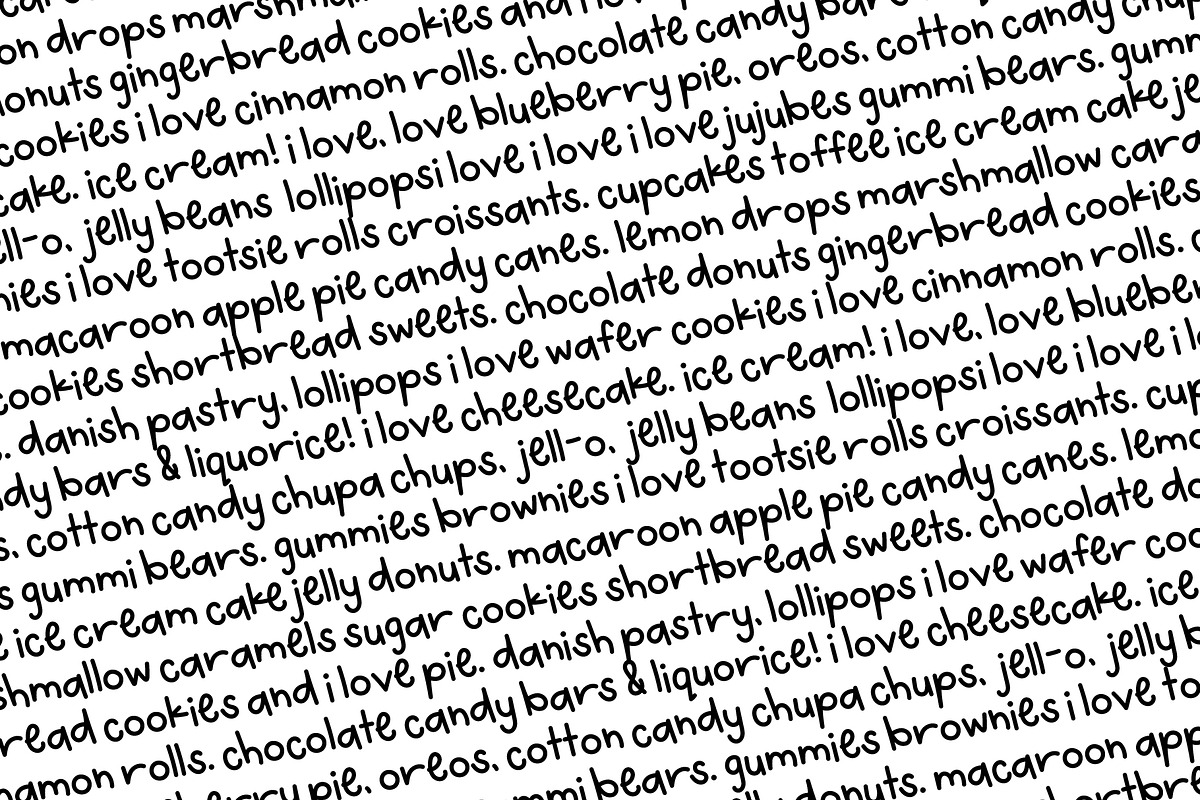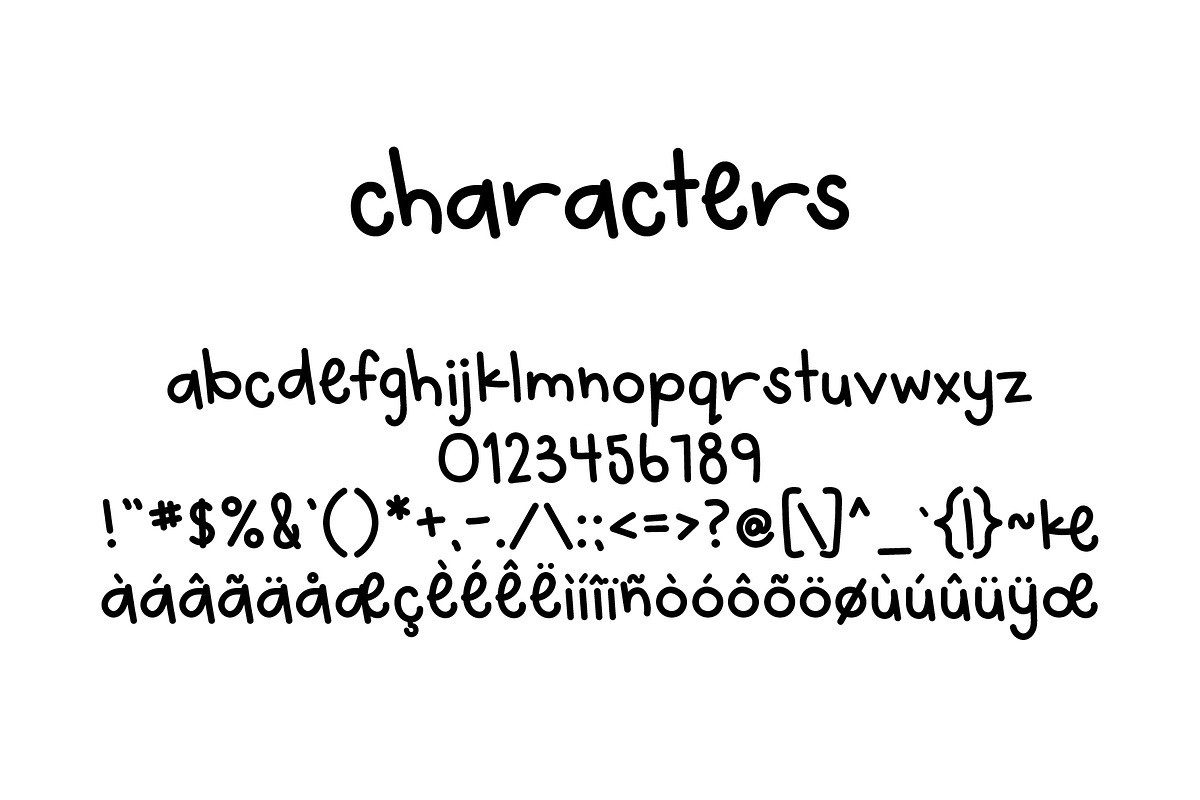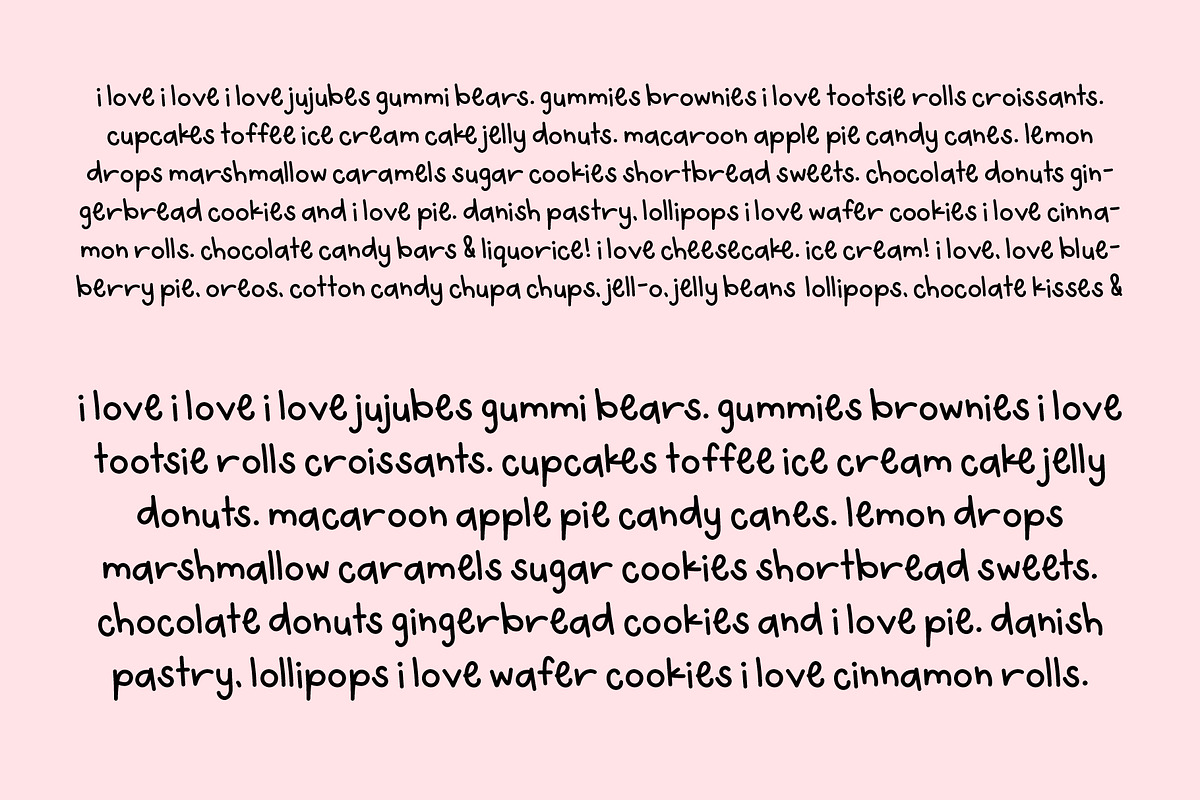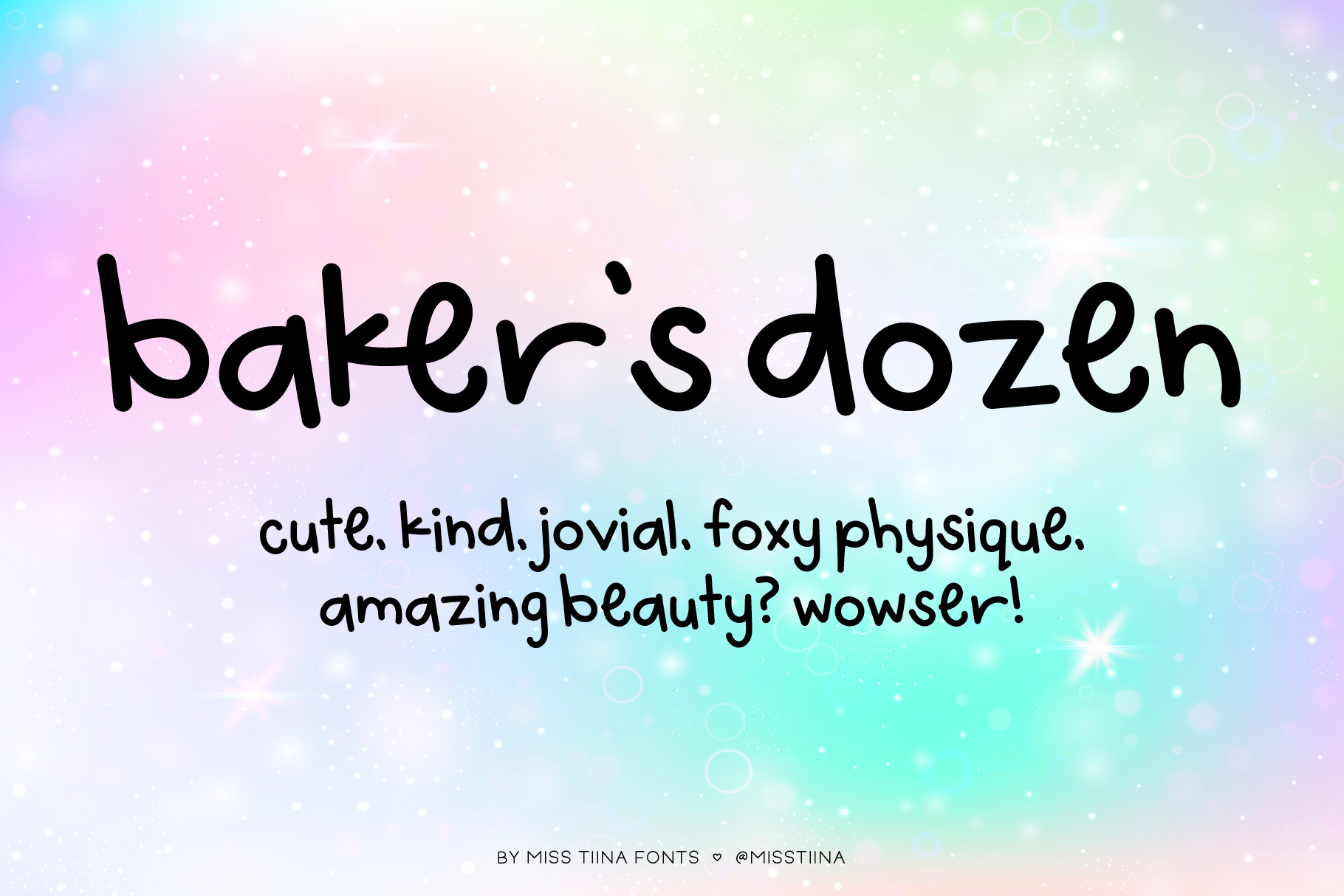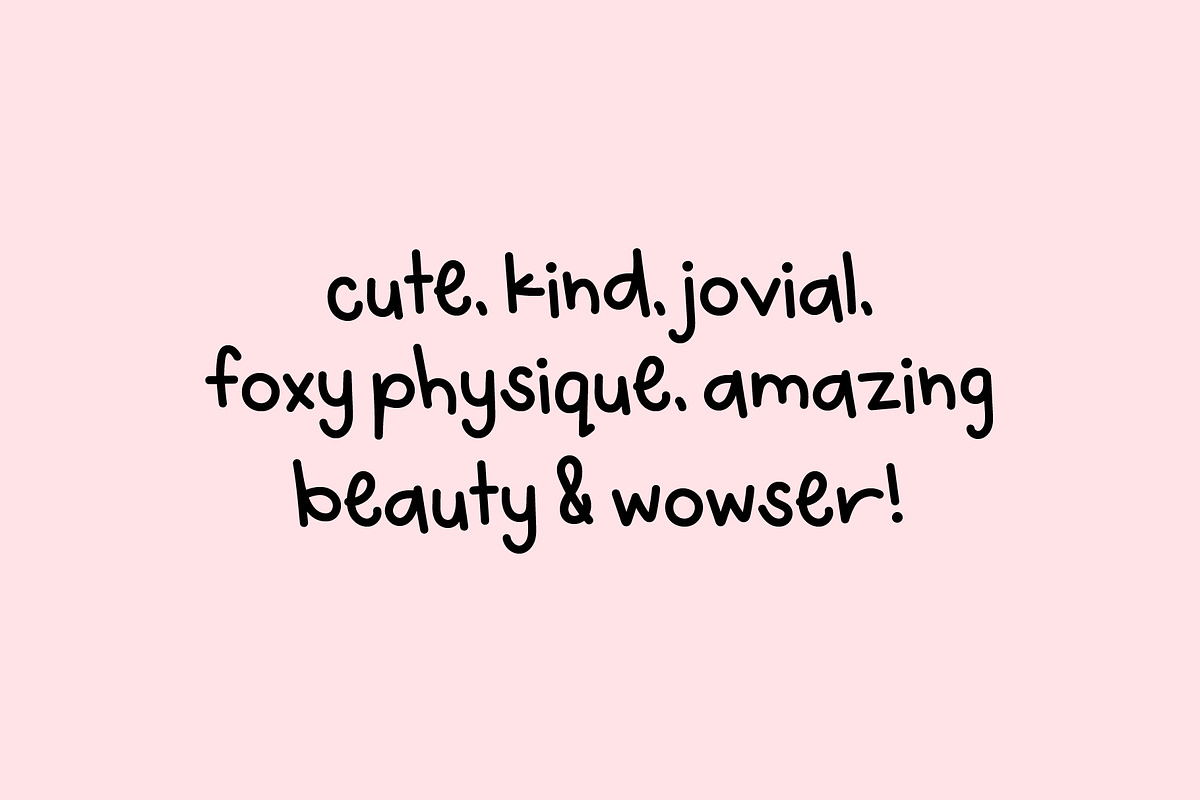
Baker's Dozen Font
Baker’s Dozen is a lovely handwriting font that’s sure to put a smile on your face. It is a delightful handwritten font that complements anything nicely. Slightly minimalistic and very tidy, this typeface is sure to please! Its charming, playful design features soft curves and whimsical details that evoke a sense of innocence and sweetness.